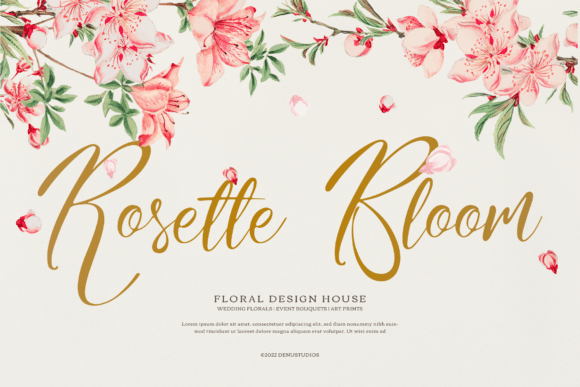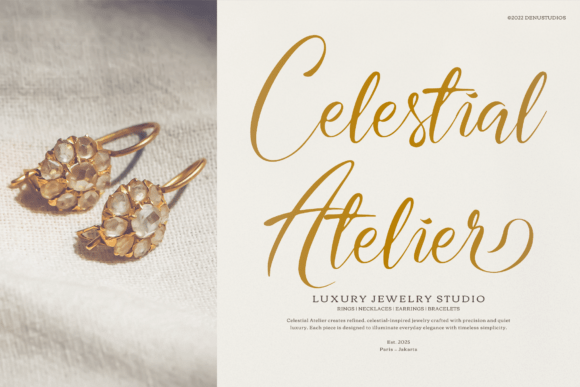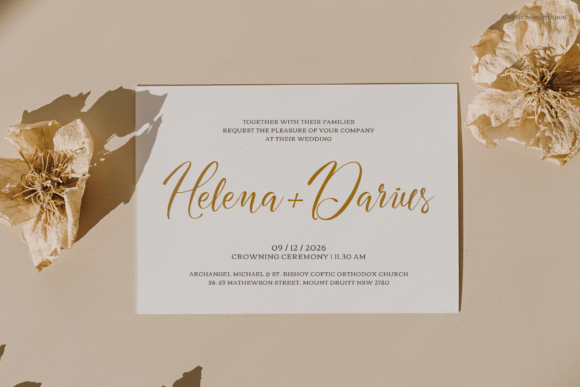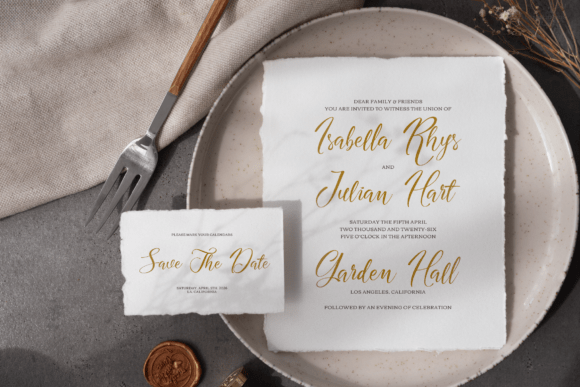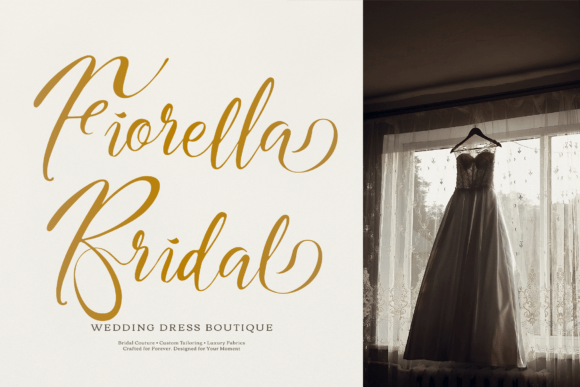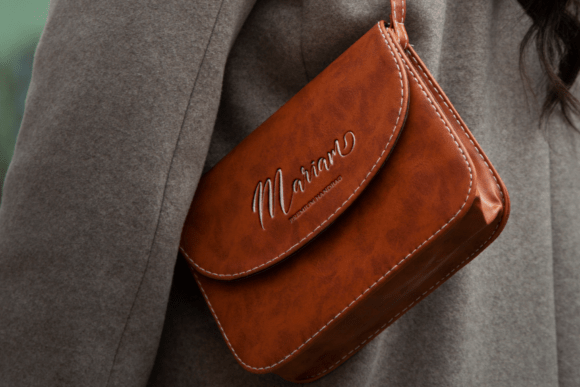
Introduction to Nomesyl Bridella Font
Behold the stunning beauty of the Nomesyl Bridella font, a breathtaking calligraphy script that epitomizes luxury and romance.
This exceptionally graceful Nomesyl Bridella font flows across the page with delicate swashes, perfect for evoking a sense of high-end, bespoke elegance Crafted with exquisite attention to detail, itโs the ultimate choice for moments that require a truly refined touch.
Key Features of Nomesyl Bridella Font
Why Choose Nomesyl Bridella Font?
Nomesyl Bridella Font offers exceptional quality and versatility, making it a valuable addition to your design toolkit. Whether you’re creating for personal projects or commercial use, Nomesyl Bridella Font delivers professional results.